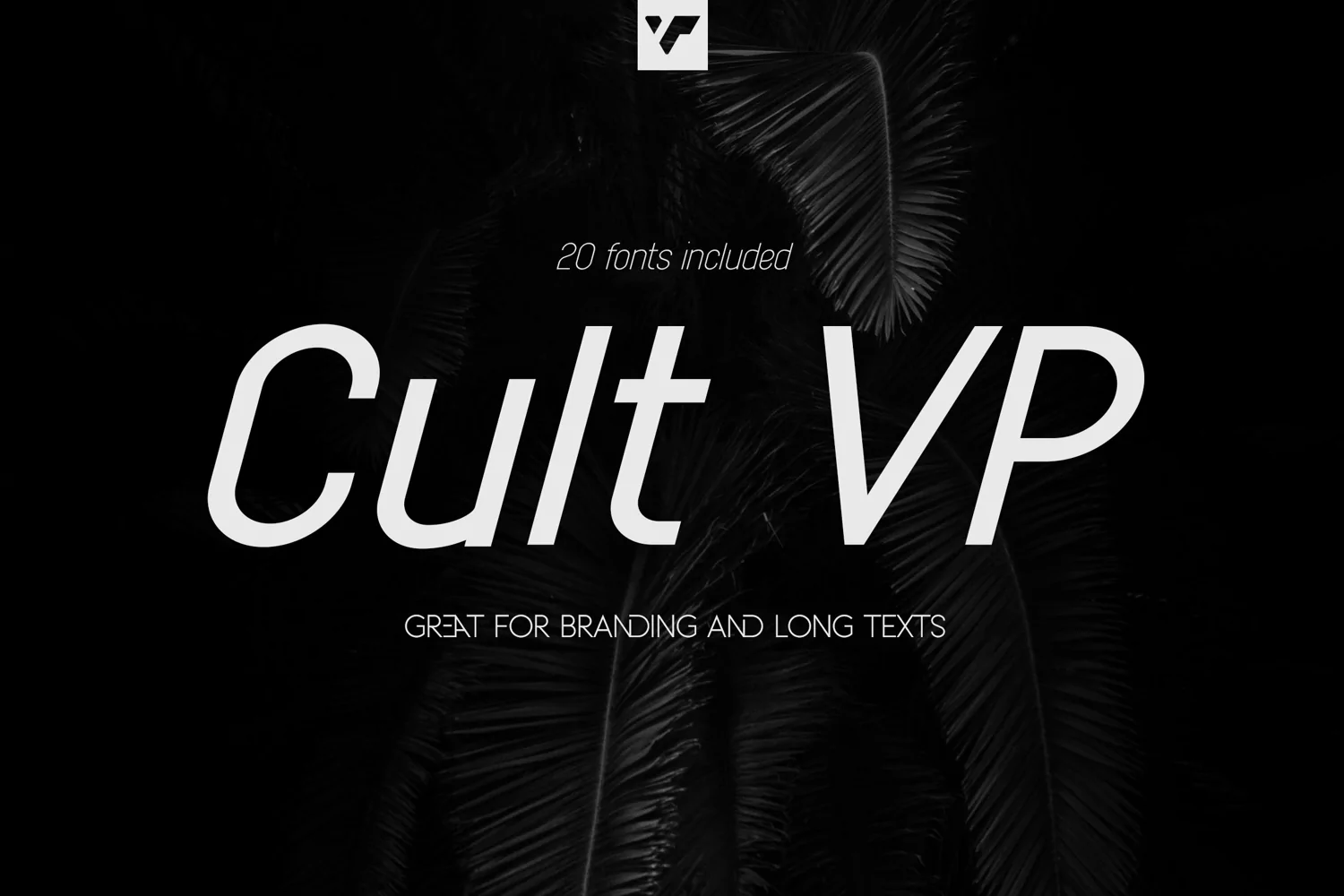
Cult VP family for branding and text
Introducing Cult VP typeface - 20 fonts
Cult VP is modern and timeless typeface loaded with 20 font styles (branding, regular, italics) 87 languages support and ligature glyphs to make you typography truly unique!
• Uppercase, lowercase, numeral, punctuation & Symbol
• ligature glyphs
• Branding font - regular and italic
• 9 sans serif weights - regular and italics